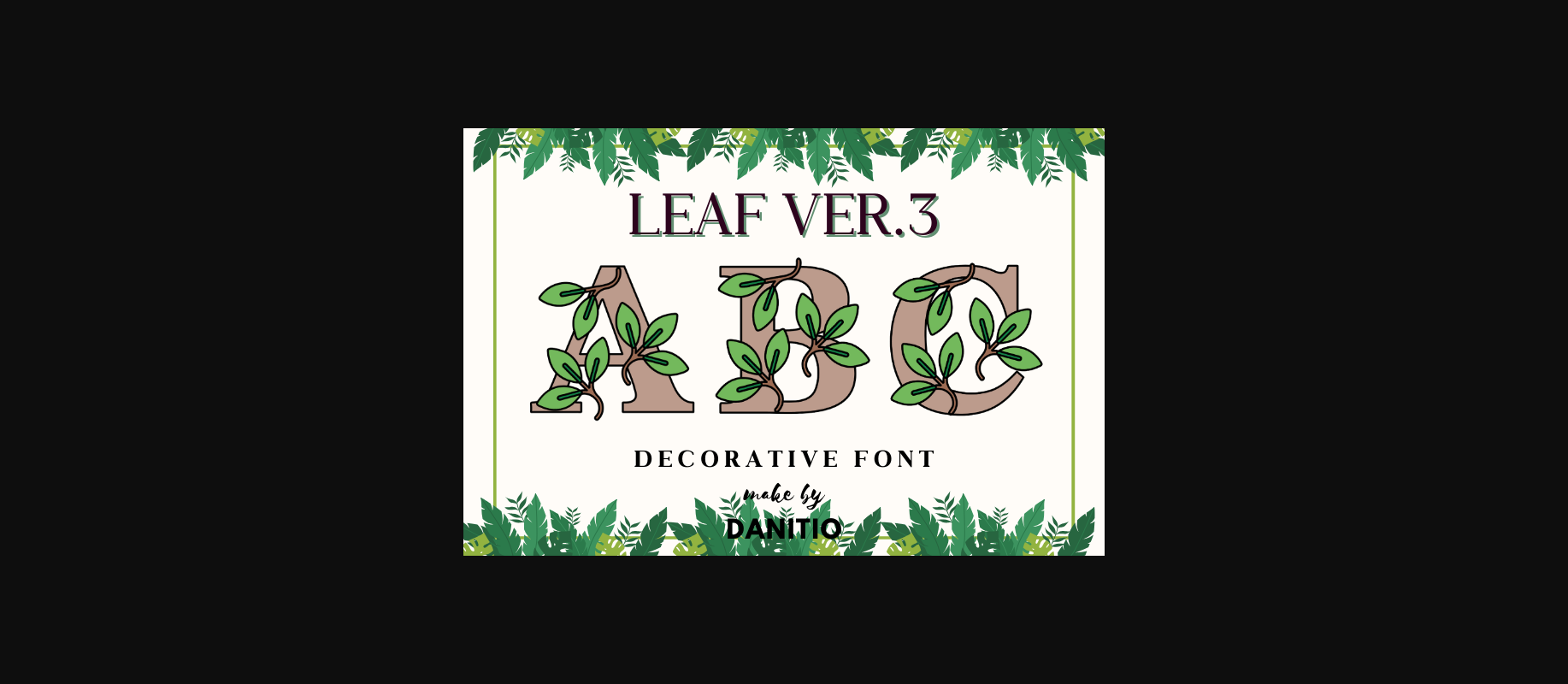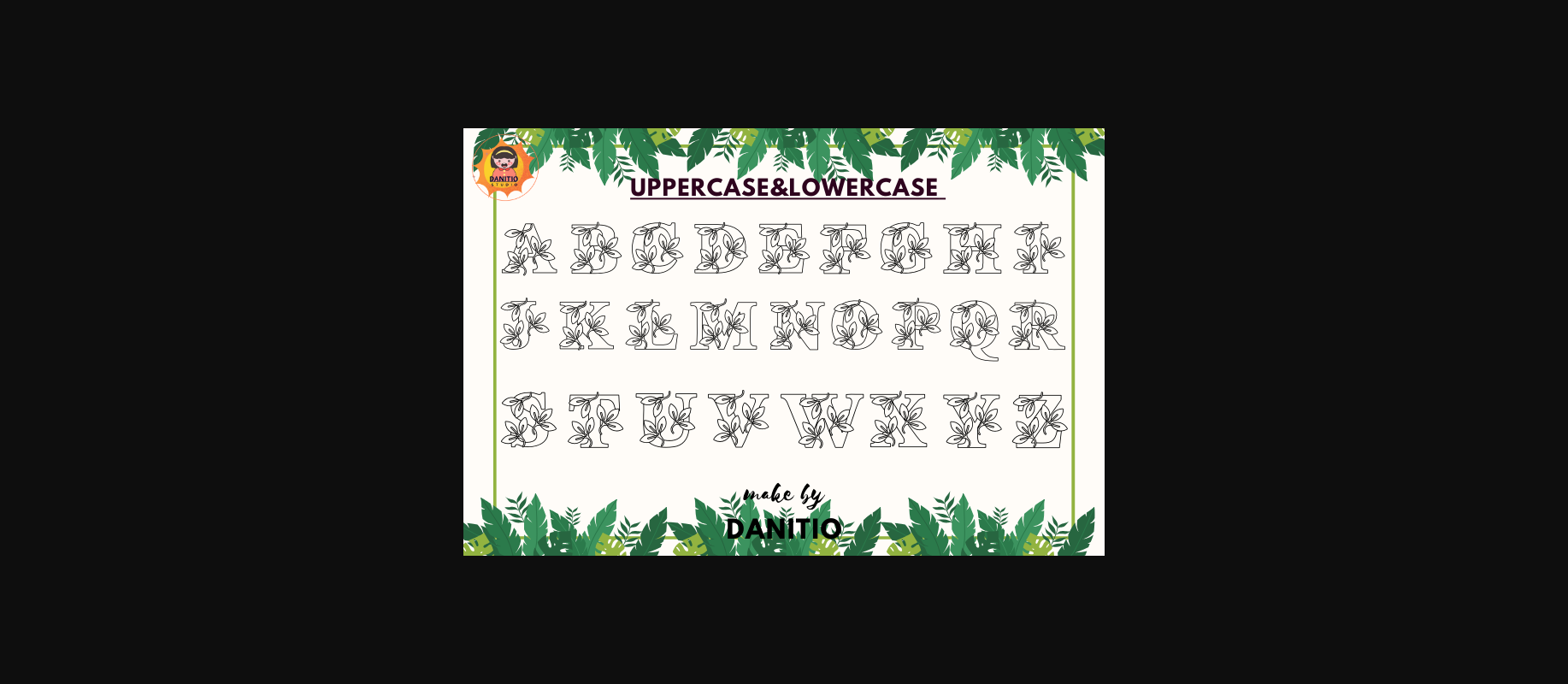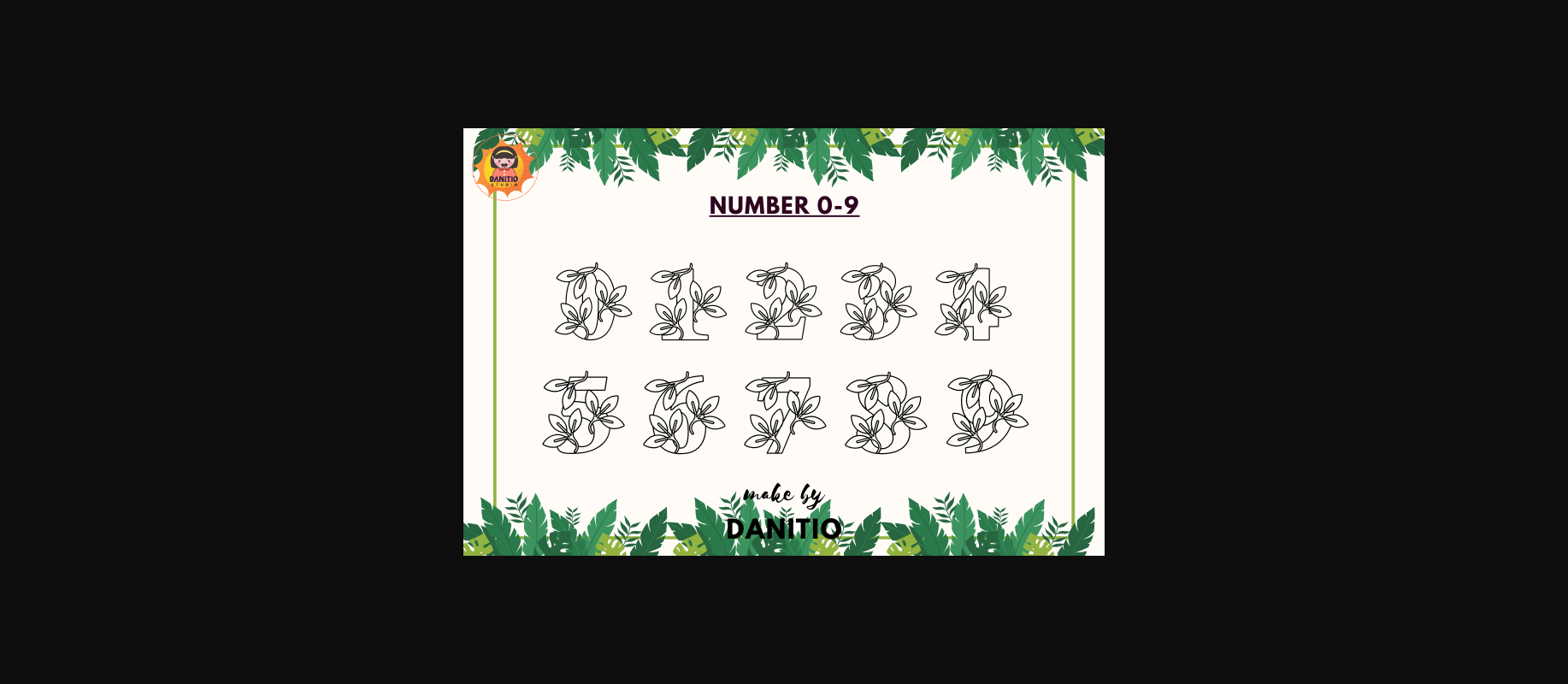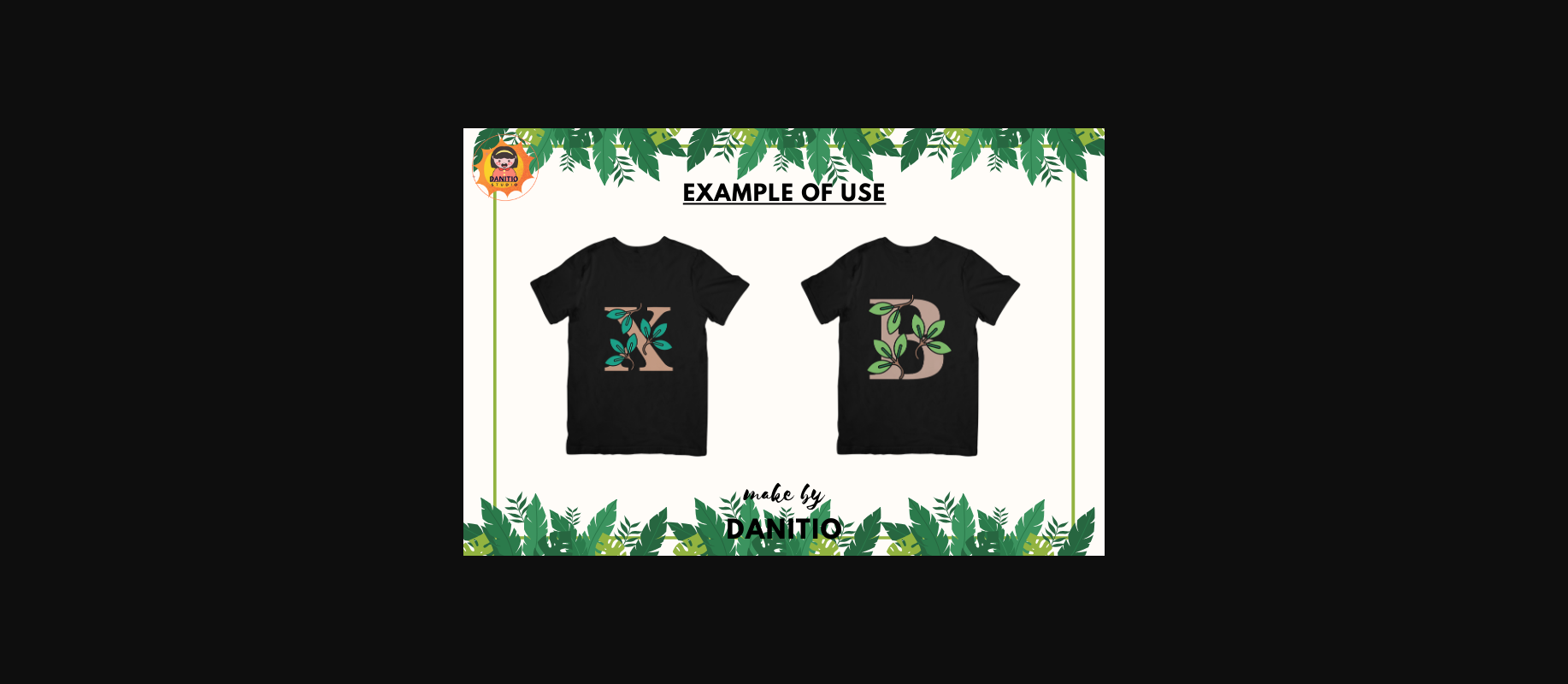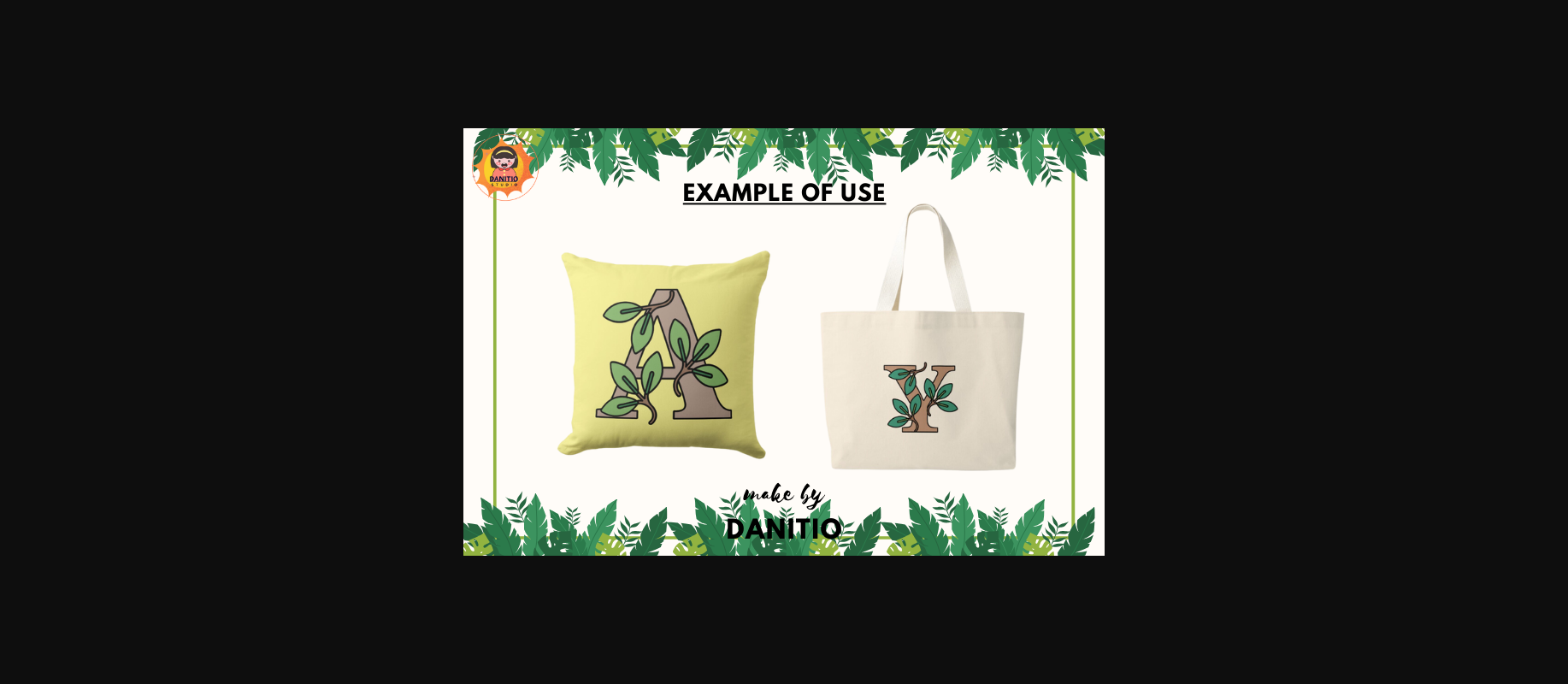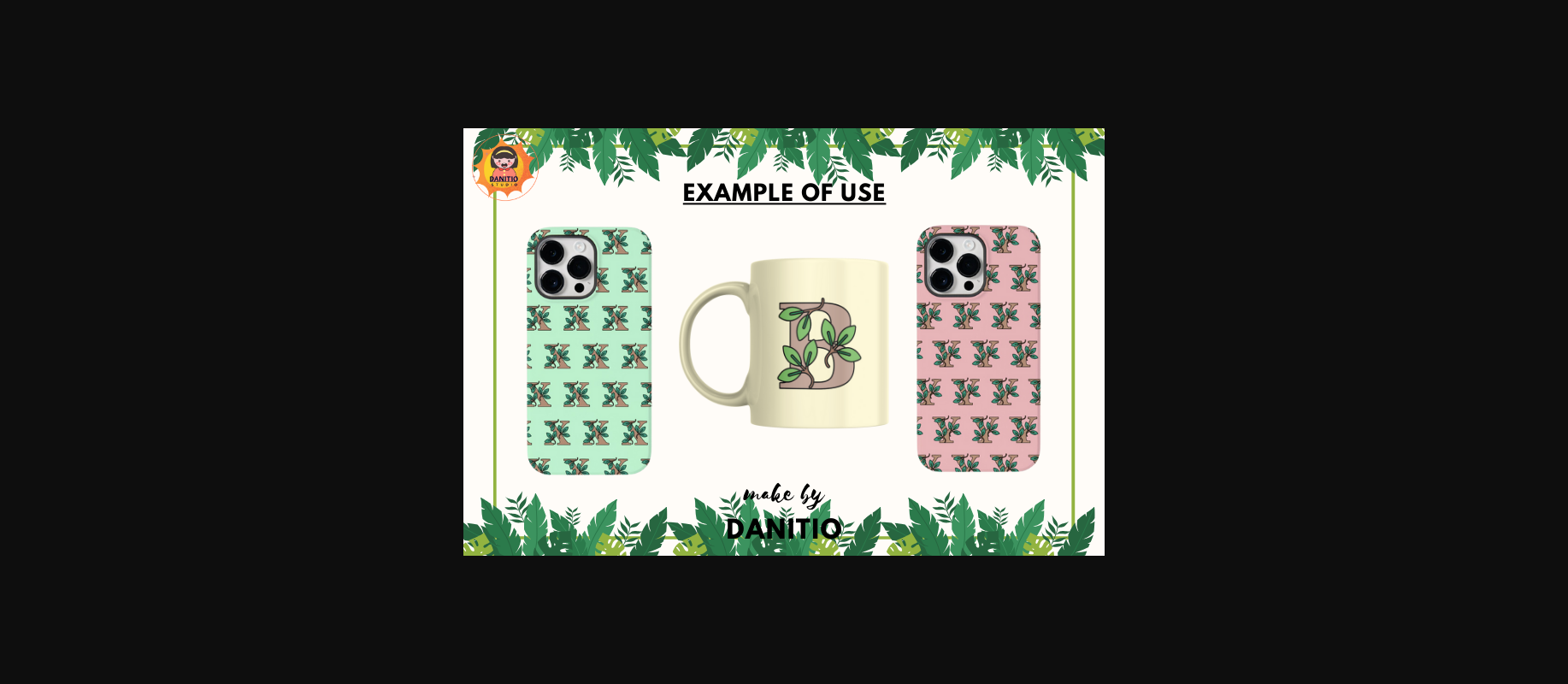
Leaf Ver.3 Font
About Leaf Ver.3 Font
Leaf Ver.3 is a beautiful and gentle decorative display font. It features two leaves decorating the letters causing cuteness and tenderness and creating a distinct style, making it suitable for key designs. Whether you use it for digital artifacts, presentations greeting cards, t-shirts, mugs, or tote bags it will be the perfect fit.